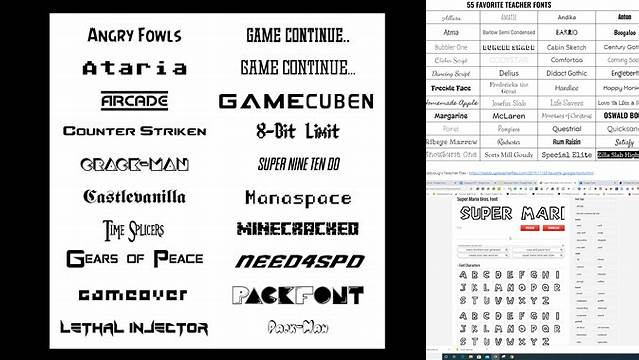
Cool Video Game Fonts For Google Docs
Hey guys! Ever wanted to spice up your Google Docs with some awesome video game fonts? You've come to the right place! In this article, we're going to dive deep into how you can use video game fonts on Google Docs to make your documents pop. Whether you're writing a gaming review, creating a D&D campaign, or just want to add some flair to your notes, we've got you covered. Let's get started!
H2: Finding the Perfect Video Game Font
Finding the perfect video game font is like choosing the right weapon for your character – it sets the tone and style! There are tons of options out there, from pixelated retro fonts to sleek, futuristic ones. Think about the vibe you're going for. Are you channeling an 8-bit classic, or a modern AAA title? The key is to browse different font websites and find something that resonates with your project. Many sites offer free downloads, but always double-check the licensing to make sure you can use the font for your intended purpose. You might even find font pairings that complement each other, adding depth to your design. Remember, the right font can make all the difference in capturing your audience's attention and creating a visually engaging document.
H2: Pixel Fonts for Retro Gaming Vibes
If you're going for that old-school video game aesthetic, pixel fonts are your best friend. These fonts mimic the blocky, 8-bit style of classic games, bringing a sense of nostalgia and charm to your documents. Think video game titles like Mario, Zelda, and Metroid – those iconic pixelated letters are instantly recognizable and evoke a strong sense of retro gaming. Using pixel fonts can add a fun, playful touch to your work, whether you're creating a game design document, a retro-themed presentation, or just want to inject some personality into your writing. There are tons of free pixel fonts available online, so experiment with different styles and find the perfect one to capture your desired video game vibe. Don't be afraid to mix and match different sizes and weights to create visual interest and highlight key points in your text.
H2: Futuristic Fonts for Sci-Fi Themes
For a more modern and sleek video game feel, futuristic fonts are the way to go. These fonts often feature sharp angles, clean lines, and a sense of technological sophistication, making them perfect for sci-fi themed projects. Think video games like Cyberpunk 2077, Deus Ex, or Mass Effect – these titles use futuristic fonts to create a sense of immersion and technological advancement. Using a futuristic font can instantly give your document a high-tech, cutting-edge look, whether you're writing a science fiction story, designing a futuristic user interface, or just want to add a touch of modern flair to your work. Experiment with different styles, from sleek and minimalist to bold and geometric, to find the perfect font for your project. Remember, the right futuristic font can transport your readers to another world and enhance the overall visual impact of your document.
H2: Fantasy Fonts for RPG Adventures
If you're diving into the world of RPGs and fantasy video games, you'll need a font that captures the epic, mythical feel of these genres. Fantasy fonts often feature ornate details, calligraphic flourishes, and a touch of medieval or ancient aesthetics. Think video game titles like The Elder Scrolls, The Witcher, or Final Fantasy – these games use fantasy fonts to create a sense of grandeur, magic, and adventure. Using a fantasy font can instantly transport your readers to a world of dragons, knights, and mystical quests, whether you're writing a fantasy novel, designing a tabletop RPG campaign, or just want to add a touch of whimsy to your work. Look for fonts with elegant curves, intricate serifs, and a sense of timelessness to truly capture the essence of the fantasy genre. The right video game font can make your text feel like it's been pulled straight from the pages of an ancient tome.
H2: Using Google Fonts for Game-Inspired Designs
Google Fonts is a treasure trove of typography, and you can absolutely find fonts there that are perfect for game-inspired designs. While you might not find fonts labeled explicitly as “video game fonts,” there are plenty that capture the essence of different gaming genres. For example, you might use a bold, geometric sans-serif font for a futuristic video game theme, or an elegant serif font for a fantasy-inspired project. The key is to browse the Google Fonts library and experiment with different options until you find something that fits your vision. Plus, Google Fonts are super easy to add to Google Docs – just click “Add fonts” in the font dropdown menu and search for the font by name. You can preview fonts directly within Google Docs, making it simple to see how they look in your document before committing to a choice.
H3: Retro Pixel Fonts in Detail
Let's dive deeper into the world of retro pixel video game fonts. These fonts are all about capturing the charm of classic 8-bit and 16-bit games. Think of the blocky letters in games like Super Mario Bros. or The Legend of Zelda – that's the kind of vibe we're going for! When choosing a pixel font, consider the level of detail. Some pixel fonts are very simple and blocky, while others have slightly more intricate designs. Also, pay attention to readability. While a super-pixelated font might look cool, it might not be the best choice for large blocks of text. Use these fonts sparingly, maybe for titles or headings, and pair them with a more readable font for body text. This way, you can get that retro video game feel without sacrificing legibility.
H3: Exploring Futuristic Font Styles
Futuristic video game fonts come in a wide range of styles, from sleek and minimalist to bold and geometric. Some futuristic fonts have sharp angles and clean lines, while others feature rounded edges and a more organic feel. When choosing a futuristic font, think about the specific video game or sci-fi theme you're going for. A font with sharp, angular shapes might be perfect for a cyberpunk setting, while a font with rounded edges might be better suited for a space exploration game. Consider the weight and spacing of the font as well. A bold, wide font can convey a sense of power and technology, while a lighter, more condensed font can create a sense of elegance and sophistication. Experiment with different options to find the perfect font for your project.
H3: Fantasy Fonts and Their Inspirations
Fantasy video game fonts draw inspiration from a variety of sources, including medieval calligraphy, ancient runes, and mythical alphabets. These fonts often feature ornate details, elegant curves, and a touch of whimsy. When choosing a fantasy font, think about the specific tone and style you want to convey. A font with intricate serifs and flowing lines might be perfect for a high-fantasy setting, while a font with rough, hand-drawn characters might be better suited for a gritty, low-fantasy world. Consider the historical and cultural influences that you want to evoke. A font that resembles ancient runes might be great for a Norse-inspired video game, while a font that looks like medieval calligraphy might be perfect for a fantasy world based on European folklore. The possibilities are endless!
H3: Combining Fonts for Visual Impact
One of the best ways to make your documents stand out is to combine different video game fonts for visual impact. This technique involves using one font for headings and another font for body text, creating a sense of contrast and hierarchy. When combining fonts, it’s important to choose fonts that complement each other. For example, you might pair a bold, pixelated font for headings with a clean, sans-serif font for body text. Or, you might combine a futuristic font with sharp angles for headings with a more rounded, geometric font for body text. The key is to experiment and see what looks good together. Use a font pairing tool or website for inspiration, or simply browse examples of typography online. Remember, the goal is to create a visual hierarchy that guides the reader through your document and makes it easy to read and understand.
H3: Using Fonts to Enhance Game Reviews
If you're writing a video game review, the fonts you use can actually enhance the overall impact of your critique. Think about it – a review of a retro video game might benefit from a pixel font to set the tone, while a review of a futuristic title might call for a sleek, modern font. The font can subtly communicate the genre and style of the video game to the reader even before they delve into the text. This can create a more immersive and engaging reading experience. Don't be afraid to use bold and italic styles to highlight key points or quotes from the game. Just make sure your font choices are readable and don't distract from the content of your review. The right video game font can be a powerful tool for enhancing your writing.
H3: Creating Game Design Documents with Style
A well-designed game design document (GDD) is crucial for any video game project, and the fonts you use can play a significant role in its clarity and readability. A GDD is often a lengthy document filled with technical details, so choosing clear, legible fonts is essential. However, that doesn't mean you have to sacrifice style! Consider using a main video game font for headings and subheadings that reflects the theme of your game, while using a simpler, more readable font for the body text. This can make your GDD more visually appealing and engaging, which is especially important when you're sharing it with a team of developers, artists, and designers. Think about the overall tone of your game. Is it a sci-fi adventure? A fantasy RPG? The fonts you choose should align with the game's aesthetic and create a cohesive visual identity.
H3: Designing D&D Campaigns with Thematic Fonts
For Dungeon Masters crafting Dungeons & Dragons campaigns, thematic fonts can add an extra layer of immersion and excitement. Imagine presenting your players with a campaign overview document written in an elegant fantasy font, instantly transporting them to a world of magic and adventure. Using different video game fonts for different elements of your campaign – such as a calligraphic font for NPC letters and a bolder font for important announcements – can help to organize information and create a sense of visual hierarchy. You can even use a more weathered-looking font for ancient scrolls or artifacts found within the game world. The key is to choose fonts that evoke the tone and setting of your campaign, whether it's a grimdark fantasy world or a lighthearted adventure. The right video game font can truly bring your campaign to life.
H3: Font Size and Readability in Google Docs
No matter how cool your video game font is, it's crucial to ensure your text is still readable. Font size plays a huge role in readability, especially in digital documents like Google Docs. As a general rule, aim for a font size of 11 or 12 points for body text. This size is typically large enough to be easily read on a computer screen without being overwhelming. For headings and subheadings, you can use larger font sizes to create visual hierarchy and guide the reader's eye. However, be careful not to go too large, as this can make your document look cluttered. Also, consider the specific font you're using. Some fonts are naturally more readable than others, even at smaller sizes. Always test your document on different screens and devices to make sure the font size is appropriate and that the text is easy to read for everyone.
H3: Font Colors and Their Impact
Font color is another important factor to consider when using video game fonts in Google Docs. The color of your text can significantly impact readability and the overall visual appeal of your document. Generally, it's best to stick to high-contrast color combinations, such as black text on a white background or white text on a dark background. These combinations are easiest on the eyes and ensure that your text is legible. However, you can also use color to add visual interest and highlight key information. For example, you might use a different color for headings, subheadings, or important quotes. Just be careful not to overuse color, as too many colors can make your document look cluttered and distracting. Consider the overall tone of your document and choose colors that align with your theme. For a retro video game theme, you might use bold, vibrant colors, while a futuristic theme might call for cooler, more muted tones.
H3: Font Spacing and Kerning for Professional Look
Font spacing, also known as kerning and tracking, refers to the space between individual letters and the overall spacing of words in a text. Proper font spacing is crucial for creating a professional and readable document, especially when using unique video game fonts. Kerning adjusts the space between specific pairs of letters to improve their visual harmony, while tracking adjusts the overall spacing between all letters in a word or phrase. Google Docs has some built-in tools for adjusting font spacing, allowing you to fine-tune the look of your text. If your font appears too cramped or too spaced out, try adjusting the kerning or tracking to achieve a more balanced and visually appealing result. Pay attention to how the letters interact with each other and make sure there's enough whitespace around the text to make it easy to read. Small adjustments to font spacing can make a big difference in the overall look and feel of your document.
H3: Common Font Licensing for Video Game Fonts
Before you start using a video game font in your project, it's essential to understand the font's licensing terms. Font licenses dictate how you can legally use the font, and they can vary significantly depending on the font's creator and distributor. Some fonts are free for personal and commercial use, while others have restrictions on how they can be used, such as limitations on embedding the font in a website or using it in a commercial product. Some fonts may require you to purchase a license for commercial use. It's always a good idea to check the licensing terms before using a font, especially if you plan to use it for a commercial project. Many font websites clearly state the licensing terms on the font's download page. If you're unsure about the licensing terms, it's best to contact the font's creator or distributor directly to get clarification. Using a font without the proper license can lead to legal issues, so it's always better to be safe than sorry.
H3: Troubleshooting Font Issues in Google Docs
Sometimes, you might encounter issues when using video game fonts in Google Docs. For example, a font might not display correctly, or it might not appear in the font list at all. Fortunately, there are several troubleshooting steps you can take to resolve these issues. First, make sure that the font is properly installed on your computer. If the font isn't installed correctly, Google Docs won't be able to access it. Try reinstalling the font and restarting your computer. If the font still doesn't appear in Google Docs, try clearing your browser's cache and cookies. Sometimes, old cached data can interfere with Google Docs' ability to load fonts. If you're still having trouble, try using a different browser or computer to see if the issue is specific to your setup. If none of these steps work, there might be a compatibility issue between the font and Google Docs. In this case, you might need to try using a different font or contact Google Docs support for assistance. Don't let font issues discourage you – with a little troubleshooting, you can usually get your fonts working properly.
H3: Font Alternatives for Google Docs Users
If you're having trouble finding the perfect video game font or you're encountering compatibility issues with Google Docs, there are plenty of font alternatives to explore. Google Fonts itself offers a wide variety of fonts that can capture the essence of different gaming genres. For a retro video game theme, you might try a pixelated font like Press Start 2P or a monospaced font like VT323. For a futuristic theme, you could consider a sleek sans-serif font like Montserrat or a geometric font like Bebas Neue. For a fantasy theme, you might explore elegant serif fonts like Lora or Playfair Display. In addition to Google Fonts, there are many other font websites and foundries that offer a wide selection of high-quality fonts. Explore different options and don't be afraid to experiment with different styles. You might be surprised at what you discover! The key is to find fonts that align with your vision and enhance the overall look and feel of your document.
H3: Online Resources for Finding Video Game Fonts
Finding the right video game font can be a fun adventure, and there are tons of online resources to help you on your quest. Websites like DaFont, FontSpace, and 1001 Free Fonts offer a vast selection of fonts, many of which are free for personal use. These sites often have categories specifically for video game fonts, making it easy to browse options that fit your style. When exploring these resources, pay attention to the licensing information for each font to ensure it aligns with your intended use. Another great resource is MyFonts, which features a curated collection of high-quality fonts from independent foundries. While MyFonts tends to offer more premium fonts, it's a fantastic place to find unique and professional-grade typefaces. Don't forget to check out Google Fonts as well, which offers a wide range of free and open-source fonts that are easy to integrate with Google Docs. With so many online resources available, you're sure to find the perfect video game font for your project.
H3: Creating a Consistent Font Theme Across Documents
Consistency is key when it comes to typography, especially if you're creating a series of documents or a brand identity. Establishing a consistent font theme across your documents can help to create a professional and cohesive look. This means choosing a specific set of video game fonts and using them consistently for headings, body text, and other elements. Think about the overall tone and style you want to convey and select fonts that align with that vision. For example, if you're creating a set of documents for a video game studio, you might choose a bold, futuristic font for headings and a clean, readable font for body text. Once you've established your font theme, stick to it across all of your documents. This will help to create a strong visual identity and make your work more recognizable. Consider creating a style guide that outlines your font choices, sizes, and colors to ensure consistency across your team or organization.
H3: The Psychology of Fonts in Game Design
Fonts aren't just about aesthetics; they also play a crucial role in the psychology of game design. The video game fonts you choose can evoke different emotions and create specific moods, influencing how players perceive your game. A pixelated font, for example, can instantly transport players back to the golden age of gaming, triggering feelings of nostalgia and retro charm. A sleek, futuristic font can create a sense of technological advancement and immersion in a sci-fi world. A fantasy font with ornate details can evoke a sense of magic and adventure. When selecting fonts for your game, think about the emotions you want to elicit from your players and choose fonts that align with those feelings. Consider the genre of your game, the target audience, and the overall tone you're trying to create. By understanding the psychology of fonts, you can make informed decisions that enhance the player experience and make your game more engaging.
H3: Using Video Game Fonts for Marketing Materials
If you're creating marketing materials for a video game, the fonts you use can make a significant impact on your campaign's success. Your marketing materials – such as posters, websites, and social media graphics – are often the first impression potential players have of your game, so it's crucial to make them visually appealing and engaging. Choosing video game fonts that align with your game's style and genre can help to create a strong brand identity and attract your target audience. For example, if you're marketing a retro-style game, using a pixelated font can instantly communicate the game's aesthetic. If you're promoting a futuristic title, a sleek and modern font can create a sense of technological innovation. Consider the overall tone of your marketing campaign and select fonts that evoke the desired emotions. Use a consistent font theme across all of your marketing materials to create a cohesive brand image. The right fonts can help your game stand out and capture the attention of potential players.
H3: The Future of Typography in Video Games
The field of typography is constantly evolving, and the future of typography in video games is full of exciting possibilities. As technology advances, we can expect to see even more innovative and dynamic font designs in games. Virtual reality (VR) and augmented reality (AR) games, for example, may require fonts that are specifically designed for immersive environments. These fonts might need to be 3D or interactive, adapting to the player's perspective and movements. We may also see more use of variable fonts, which allow for greater flexibility and customization. Variable fonts can be adjusted in real-time, allowing designers to create dynamic typography that responds to gameplay events or player actions. Artificial intelligence (AI) may also play a role in the future of typography, with AI-powered tools helping designers to generate unique fonts and optimize typography for readability and visual impact. The possibilities are endless, and it's exciting to imagine how typography will continue to shape the gaming experience.
H3: Font Design Trends in the Gaming Industry
The gaming industry is known for its cutting-edge visuals, and font design is no exception. There are several font design trends that are currently popular in video games, reflecting the industry's focus on innovation and visual appeal. One trend is the use of geometric fonts, which feature clean lines, sharp angles, and a sense of modernity. These fonts are often used in futuristic games and sci-fi titles to create a high-tech aesthetic. Another trend is the use of retro fonts, which evoke a sense of nostalgia and classic gaming. Pixelated fonts, monospaced fonts, and other retro-inspired typefaces are popular choices for indie games and retro revivals. There's also a growing trend towards using handcrafted fonts, which have a more organic and personalized feel. These fonts are often used in indie games and artistic titles to create a unique visual identity. By staying aware of current font design trends, you can ensure that your game's typography is fresh, modern, and visually appealing.
H3: The Importance of Legibility in Game Fonts
While aesthetics are important, legibility is paramount when choosing fonts for a video game. Players need to be able to easily read text in the game, whether it's dialogue, menu options, or in-game instructions. If the font is too small, too stylized, or too difficult to read, it can frustrate players and detract from their experience. Choose video game fonts that are clear, well-spaced, and easy to distinguish. Avoid fonts with overly intricate details or decorative elements that can make them difficult to read. Consider the size of the text on the screen and choose a font size that is appropriate for the display resolution. Test your fonts on different screens and devices to ensure that they are legible in various contexts. Pay attention to the contrast between the text color and the background color to ensure that the text stands out. By prioritizing legibility, you can create a more enjoyable and user-friendly gaming experience.
H3: Creating Your Own Video Game Font
If you're feeling ambitious, you can even try creating your own video game font! This can be a rewarding project that allows you to express your creativity and create a unique typeface that perfectly matches your game's style. There are several font design software programs available, such as FontLab Studio, Glyphs, and FontForge, that provide the tools you need to create your own fonts. Creating a font involves designing each individual character, including uppercase and lowercase letters, numbers, punctuation marks, and symbols. You'll also need to adjust the spacing between characters and fine-tune the font's overall appearance. Creating a font can be a time-consuming process, but it's also a great way to learn about typography and develop your design skills. If you're not ready to create a full font, you can start by modifying an existing font or creating a few custom characters. The possibilities are endless, and creating your own font can be a fun and rewarding experience.
H3: Licensing Considerations for Custom Fonts
If you create your own video game font, it's important to consider the licensing implications. As the creator of the font, you have the right to decide how others can use it. You can choose to release your font under an open-source license, which allows others to use and modify it freely, or you can choose to license it under more restrictive terms. If you plan to sell your font commercially, you'll need to create a license agreement that outlines the terms of use, including the price, the permitted uses, and any restrictions. Consider consulting with a legal professional to ensure that your license agreement is legally sound and protects your rights. If you use any existing fonts or resources as a basis for your custom font, make sure you have the necessary permissions or licenses to do so. Copyright infringement can have serious legal consequences, so it's always best to err on the side of caution. By understanding the licensing considerations for custom fonts, you can protect your work and ensure that it's used in accordance with your wishes.
H3: Integrating Fonts into Game Engines
Integrating fonts into a video game engine is a crucial step in the game development process. Most game engines, such as Unity and Unreal Engine, have built-in support for fonts, but the process of importing and using fonts can vary depending on the engine and the font format. Generally, you'll need to import your font files into the engine's asset directory and then create a font asset that references the font file. You can then use this font asset in your game's UI elements, text meshes, and other text-based components. Some engines support various font formats, such as TrueType (.ttf) and OpenType (.otf), while others may have limitations on the font formats they support. It's important to consult the engine's documentation to understand the specific requirements and best practices for font integration. You may also need to adjust font settings, such as size, spacing, and kerning, within the engine to ensure that the text looks good in your game. By properly integrating fonts into your game engine, you can create visually appealing and legible text that enhances the player experience.
H3: Optimizing Fonts for Performance in Games
In video games, performance is paramount, and fonts can have a surprising impact on a game's performance. If your game uses too many fonts, or if the fonts are not optimized properly, it can lead to performance issues, such as frame rate drops and lag. To optimize fonts for performance, it's important to use fonts sparingly and choose fonts that are efficient to render. Avoid using too many different fonts in your game, as this can increase the number of textures that need to be loaded and rendered. Use font atlases, which combine multiple characters into a single texture, to reduce the number of draw calls. Consider using signed distance field (SDF) fonts, which are rendered using mathematical equations rather than textures, and can be scaled and rendered efficiently. Test your game's performance with different fonts and font settings to identify any potential bottlenecks. By optimizing fonts for performance, you can ensure that your game runs smoothly and provides a seamless experience for players.
H3: Accessibility Considerations for Video Game Fonts
Accessibility is an important consideration in video game design, and font choices play a crucial role in making games accessible to all players. Players with visual impairments or other disabilities may have difficulty reading text in a game if the fonts are too small, too stylized, or have poor contrast. Choose fonts that are clear, legible, and have good contrast with the background. Provide options for players to adjust the font size, color, and spacing to suit their individual needs. Consider using a sans-serif font, which is generally easier to read than a serif font, especially for players with dyslexia. Avoid using decorative or overly stylized fonts, as these can be difficult to read. Test your game with players who have different visual abilities to identify any potential accessibility issues. By considering accessibility in your font choices, you can create a more inclusive and enjoyable gaming experience for all players.
H3: Future Trends in Gaming Typography
As video games continue to evolve, so too will the trends in gaming typography. We can expect to see more innovative and dynamic font designs that push the boundaries of what's possible in game typography. One trend is the use of variable fonts, which allow for greater flexibility and customization. Variable fonts can be adjusted in real-time, allowing designers to create dynamic typography that responds to gameplay events or player actions. We may also see more use of 3D fonts, which can add depth and dimension to in-game text. The integration of AI and machine learning may lead to new tools and techniques for generating and optimizing fonts for games. Virtual and augmented reality games will likely require new approaches to typography, with fonts that are designed for immersive environments. By staying abreast of these future trends, game developers can ensure that their games' typography is cutting-edge and visually compelling.
So there you have it! Using video game fonts in Google Docs can really elevate your projects. Whether you're channeling retro vibes or futuristic feels, the right font can make all the difference. Go ahead, experiment, and have fun with it! Let your creativity shine!